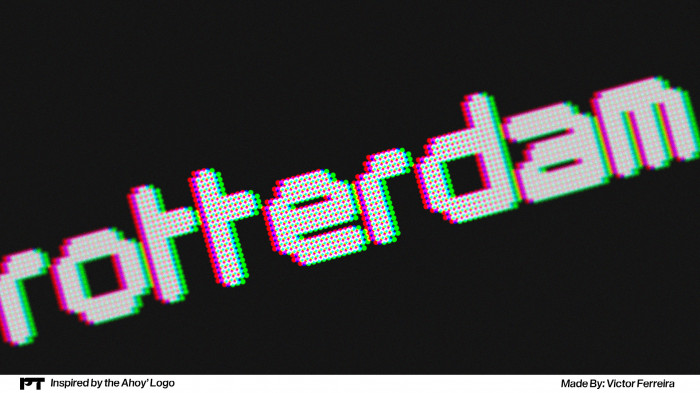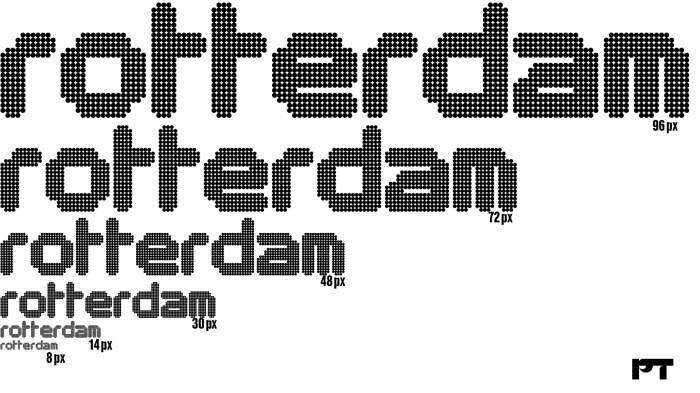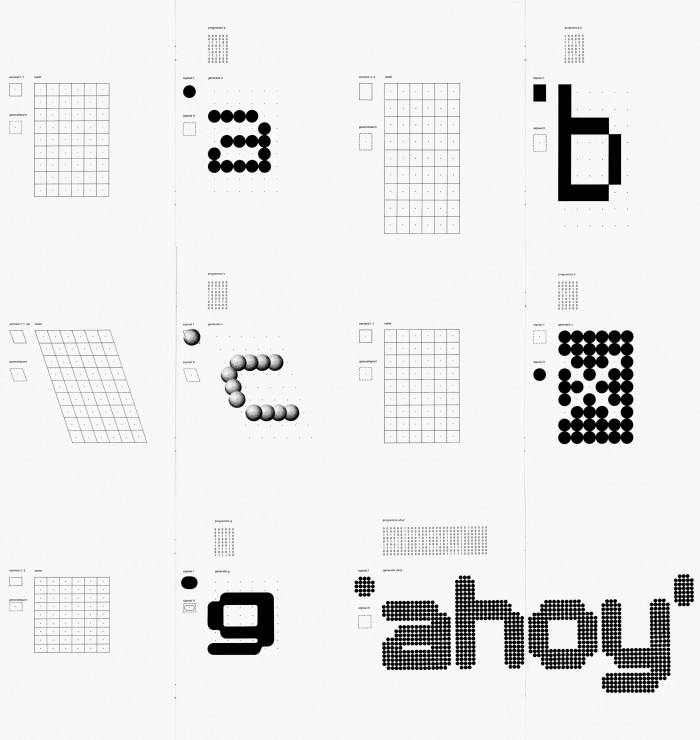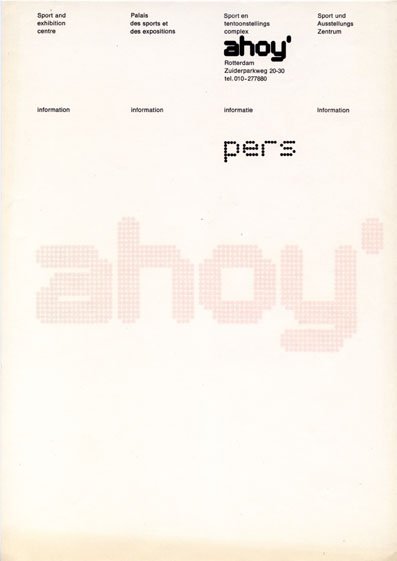
• "One of Total Design's most systematic and most thoroughly researched typefaces was conceived by Wissing: the alphabet for the Rotterdam events venue Ahoy' (1970)."
- Jan Middendorp on "Dutch Type" (2004)
This font is an attempt at a recreation of said typeface. I haven't found most of the glyphs so i tried to make them in a way that resembled this kind of "Crouwel-esque" design.
sample by victortv
font sizes (also by victor)
original modular font
updated the "R" cause i found this other document on an archive abour Benno Wissing